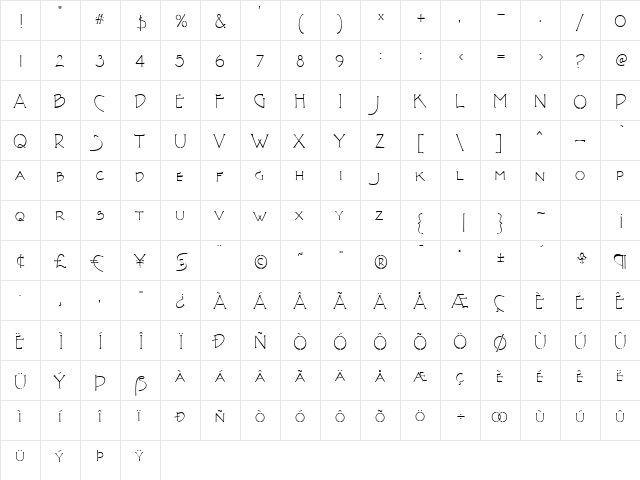
P22 FLLW Terracotta Regular
| Foundry | P22 type foundry |
| Designer | Frank Lloyd Wright / Christina Torre |
Design Context for P22 FLLW Terracotta Typeface
P22 FLLW Terracotta offers clean, dependable letterforms without strong stylistic allegiance, making it a practical choice for designers who need flexibility.